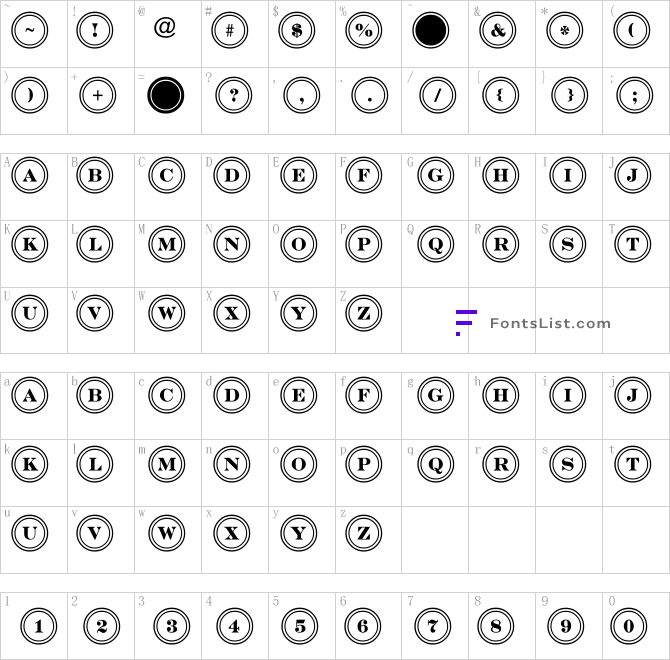
a_DiscoSerifDblOvl.ttf is a very beautiful artistic font, a_DiscoSerifDblOvl.ttf is widely used in the design and printing of various books and pictures,a_DiscoSerifDblOvl.ttf has a strong visual impact,a_DiscoSerifDblOvl.ttf is a commonly used font in newspapers, magazines and books, and is used in posters, e-commerce Poster design, store design, logo design, font design and other fields.a_DiscoSerifDblOvl.